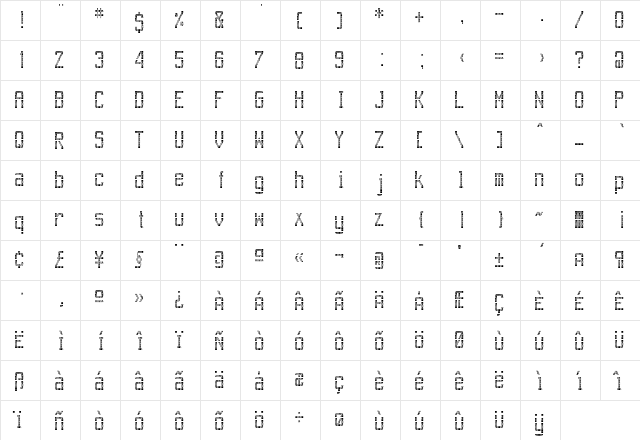
Gateway A1
Design Context for Gateway Typeface
Gateway takes a measured approach to typography — its balanced proportions and neutral character make it a reliable workhorse for both digital and print work.
Pro Tip: Pair Gateway with a font of contrasting weight or personality to build a more expressive typographic hierarchy.